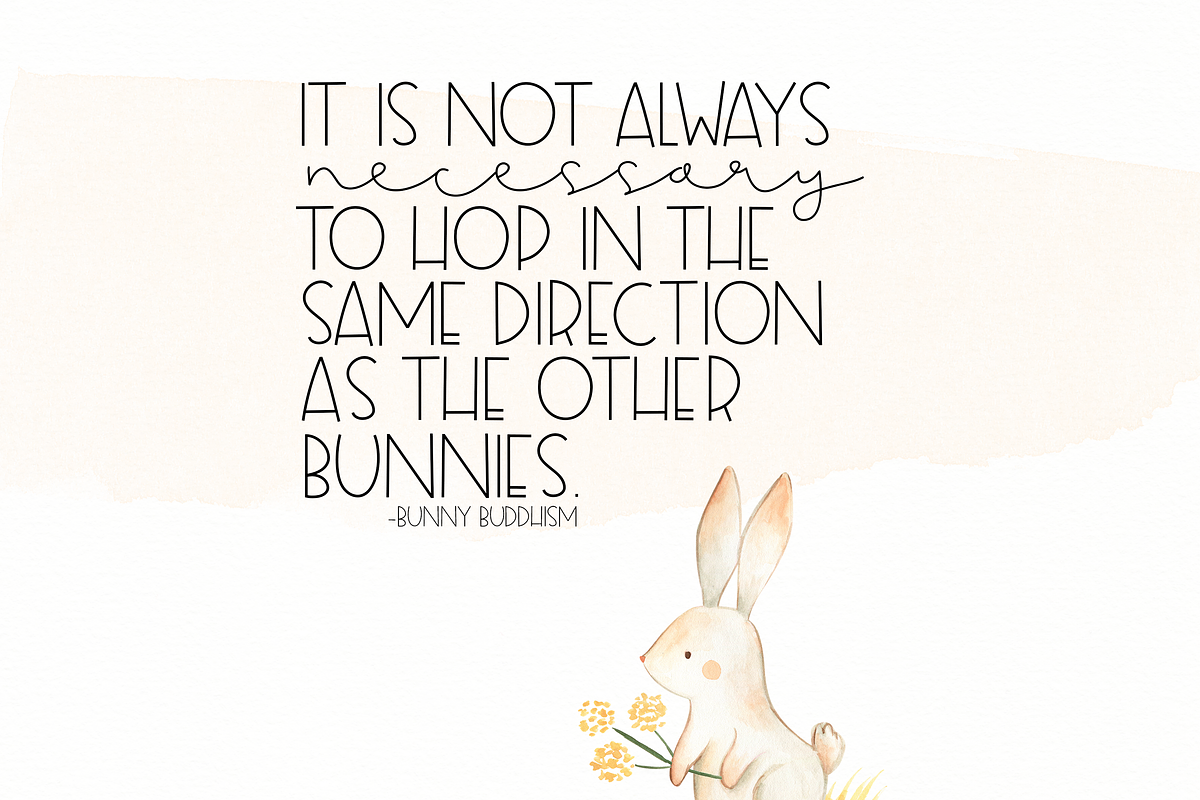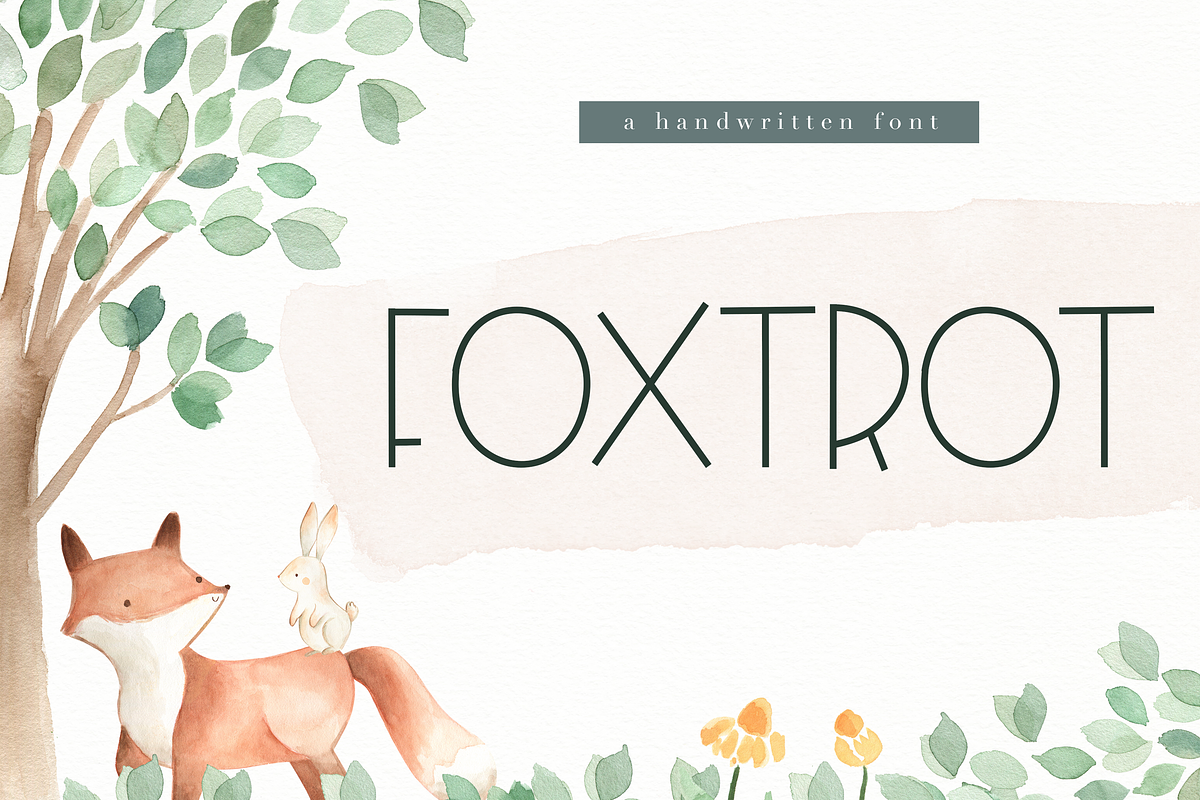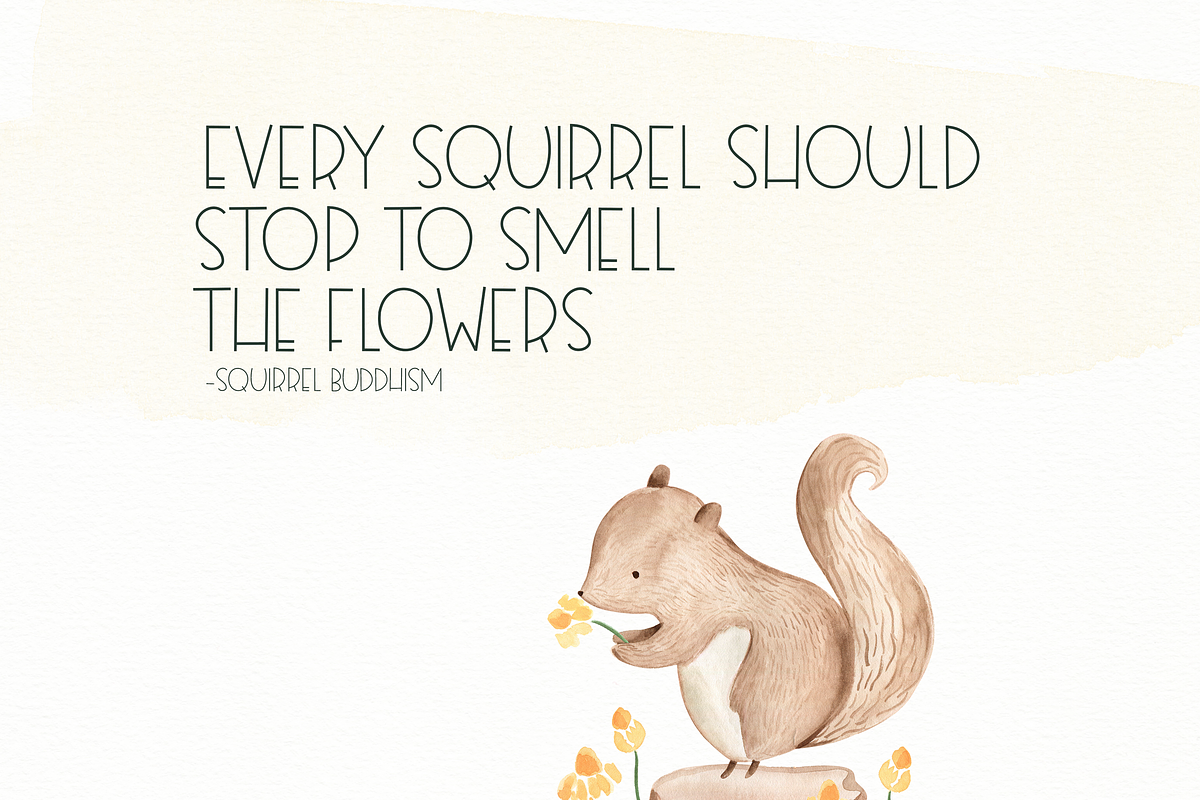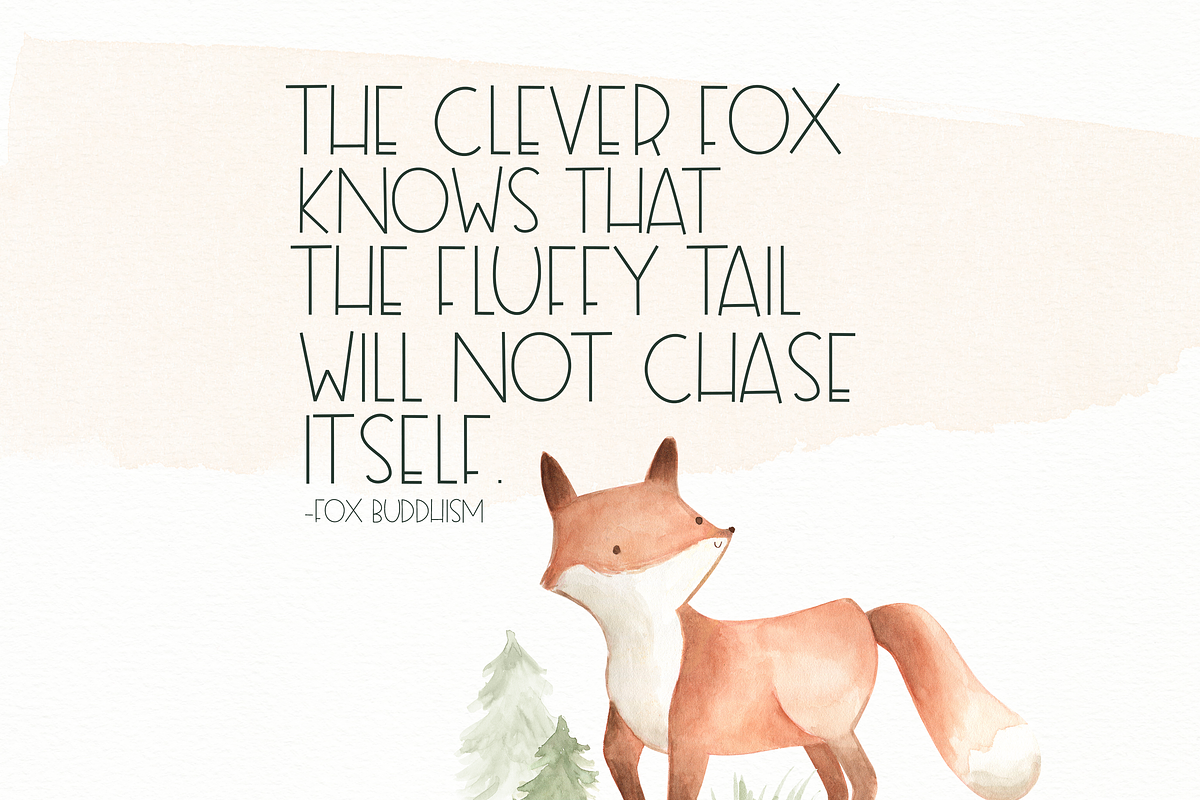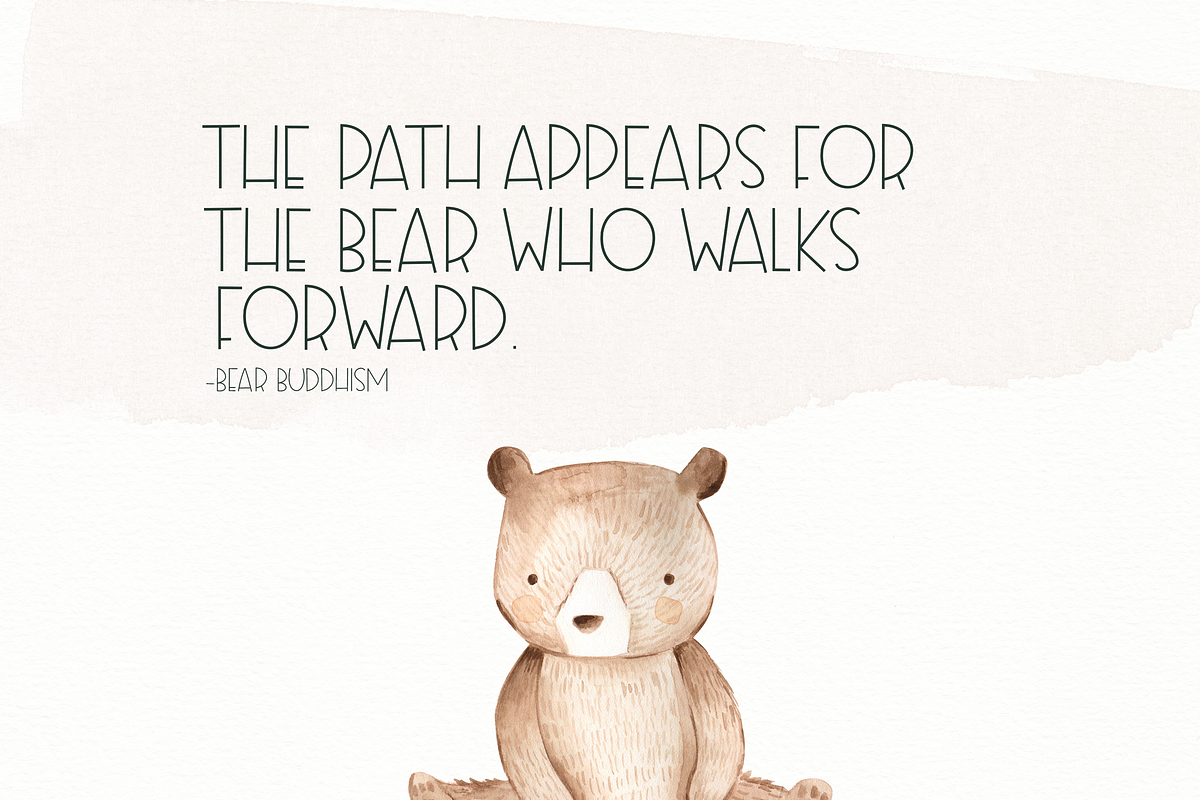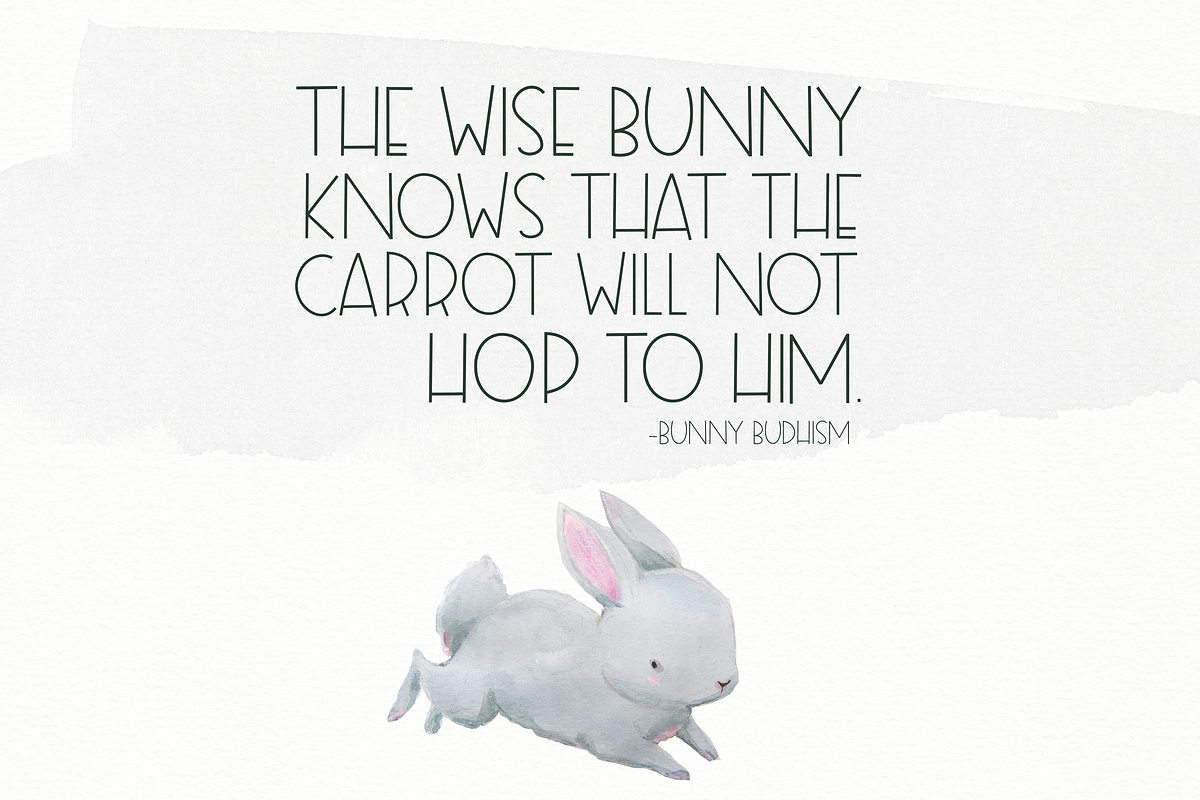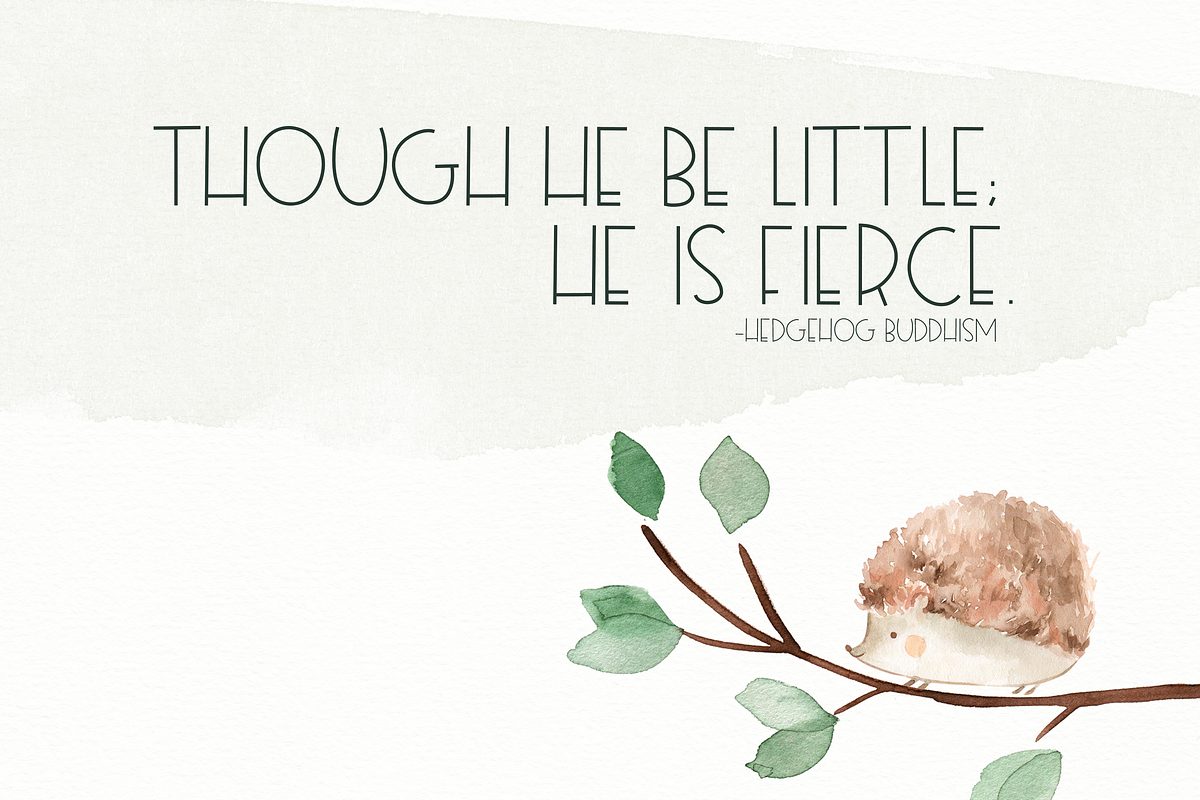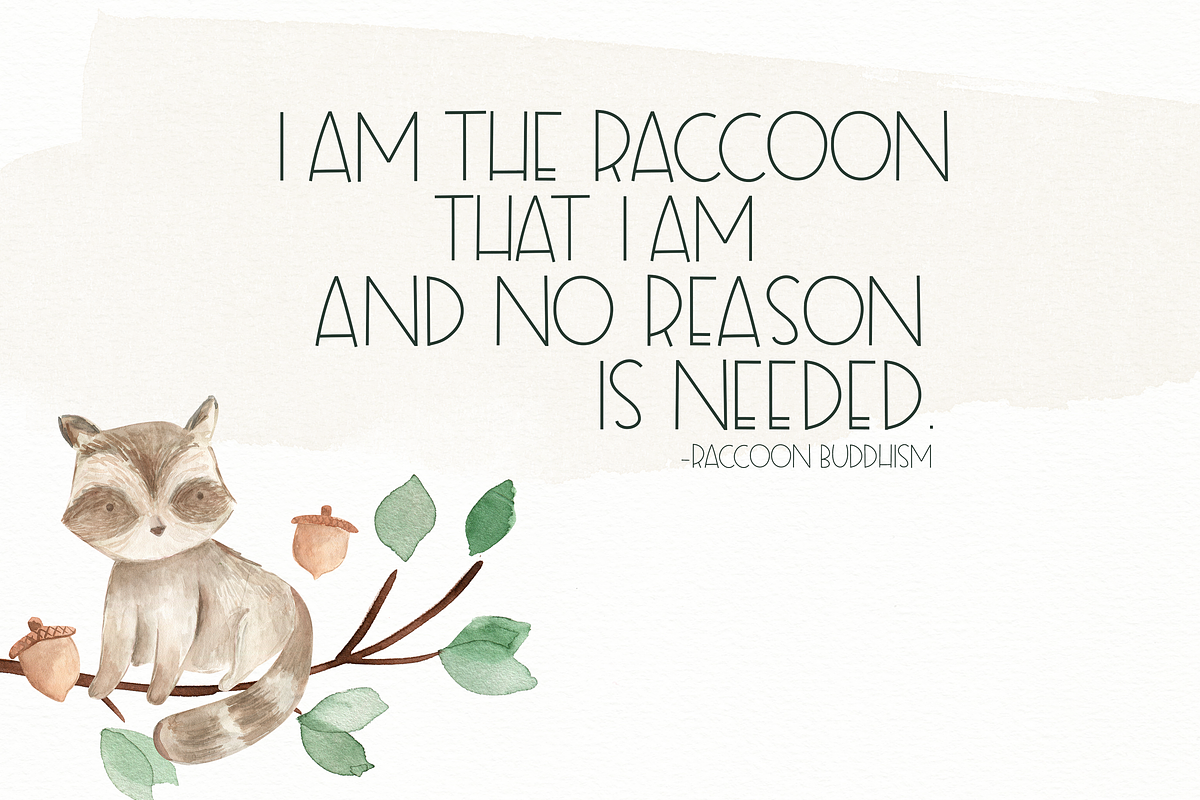
Foxtrot - Handwritten Font
Foxtrot is a clean, all caps handwritten font. The letters are big, bold and unique! The capital letters and lowercase letters are the same in this font.
This font is perfect for quotes, headings, blogs, logos, invitations and more!
- The capital letters and lowercase letters are the same in this font.
- There are no extra ligatures - I like to keep it simple.